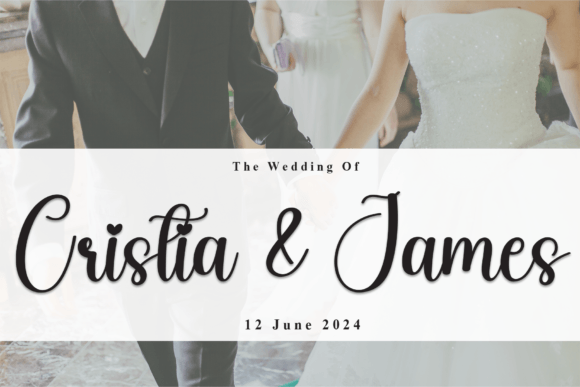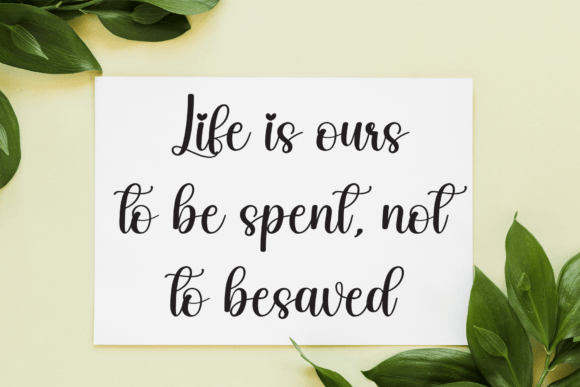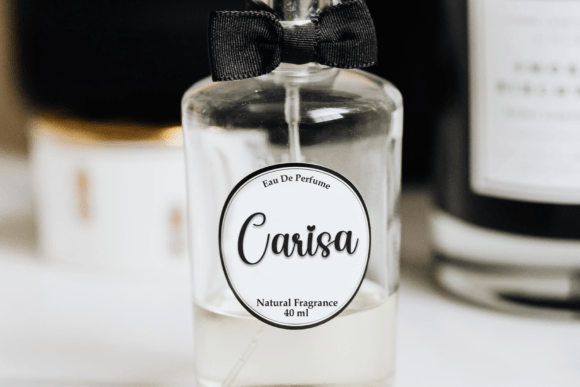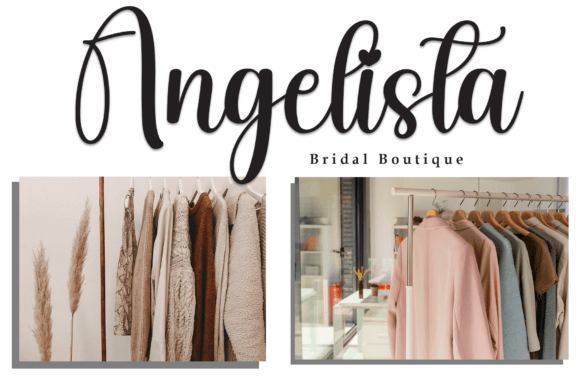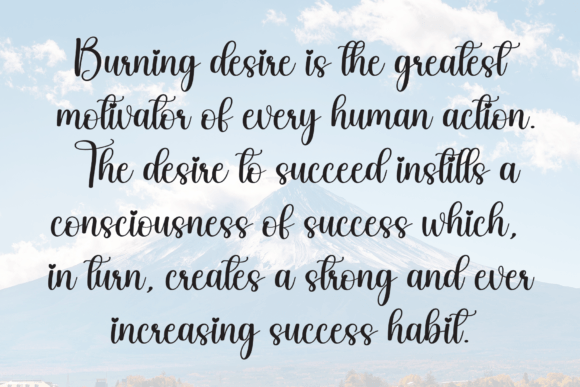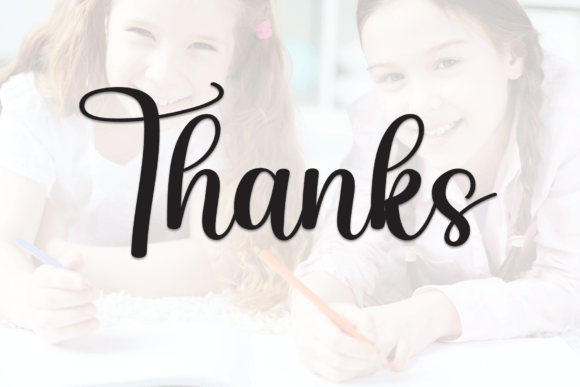
Adding a Touch of Whimsy to Your Designs
Have you ever been working on a design project and suddenly felt the urge to add a dash of playfulness and innocence to it? Maybe you’re creating a wedding invitation or a birthday card, and you want to convey the joy and excitement of the occasion. Whatever the project, the right font can make all the difference. That’s where the Child Font comes in – a sweet and friendly handwritten font that’s perfect for adding a fun touch to your designs.
Child Font is a delightful addition to any designer’s toolkit, offering a cute and playful look that’s sure to bring a smile to your audience’s faces. Whether you’re a seasoned pro or just starting out, this font is a valuable asset that can help you create truly unique and engaging designs. With its versatility and charm, the Child Font is a must-have for any designer looking to add a little magic to their work.
Key Features of Child Font
- Unique Characteristics: Child Font features a playful, childlike aesthetic with rounded edges and soft curves, making it perfect for use in children’s books, educational materials, and other projects that require a friendly and approachable tone.
Child Font Review
First off, let me say that Child Font has some really great qualities that make it shine. ✨ The font is playful and fun, with a unique character that’s perfect for kids’ books, educational materials, and other projects where a lighthearted vibe is needed. The font is also highly legible, making it a great choice for text-heavy designs.
- ✨ Playful and fun design
- ✨ Highly legible
- ✨ Unique character
However, there are a few limitations that might hold it back from being a top choice for some designers. ⚠️ The font is only available in a limited range of weights, which can make it tricky to use for projects that require a lot of flexibility. Additionally, some users have reported issues with the font’s kerning, which can affect the overall appearance of the text.
- ⚠️ Limited weight range
- ⚠️ Kerning issues
Overall, I’d say that Child Font is a solid choice for designers who need a fun, playful font for kids’ projects or other lighthearted designs. While it may not be the most versatile font out there, it’s definitely worth considering for the right project.
Tips for Getting the Most Out of Child Font
Use Child Font to create a playful and whimsical atmosphere in your designs.
Pair Child Font with bold and colorful graphics to create a visually appealing design.
Experiment with different font sizes and styles to add depth and interest to your design.
Common Use Cases for Child Font
Use Child Font for children’s book covers, educational materials, and children’s party invitations.
Use Child Font for branding and marketing materials for children’s products and services.